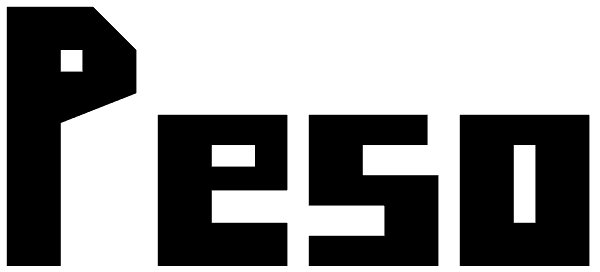
Peso
Peso is a naive type design inspired by a parking sign in Mexico. The rudimentary letters had been created using masking tape and spraypaint. It's sloppy geometric forms have a warm punkish, flyer-style charm. Peso's condensed, black style is well...
Peso